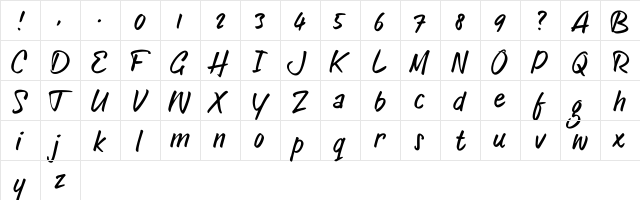
Old Letterhand TRIAL Old Letterhand regular
| Foundry | JJW van der Ham |
| Designer | JJW van der Ham / JOEBOB graphics |
Design Context for Old Letterhand TRIAL Typeface
Old Letterhand TRIAL flows with the natural rhythm of handwritten lettering, making it ideal for designs that call for warmth and personal expression.
Font Pairing: Combine Old Letterhand TRIAL with a simple geometric sans for maximum contrast — the tension between flowing curves and clean structure is a classic typographic pairing.
Pro Tip: Use Old Letterhand TRIAL for short runs of text — names, titles, or taglines. Extended body copy in script faces tires the eye quickly.